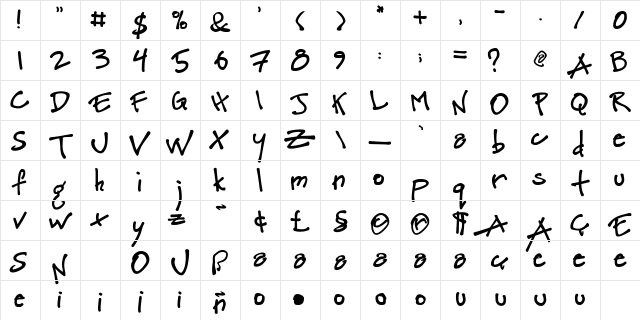
Petescript flows with the natural rhythm of handwritten lettering, making it ideal for designs that call for warmth and personal expression.
Font Pairing: Combine Petescript with a simple geometric sans for maximum contrast - the tension between flowing curves and clean structure is a classic typographic pairing.
Pro Tip: Use Petescript for short runs of text - names, titles, or taglines. Extended body copy in script faces tires the eye quickly.